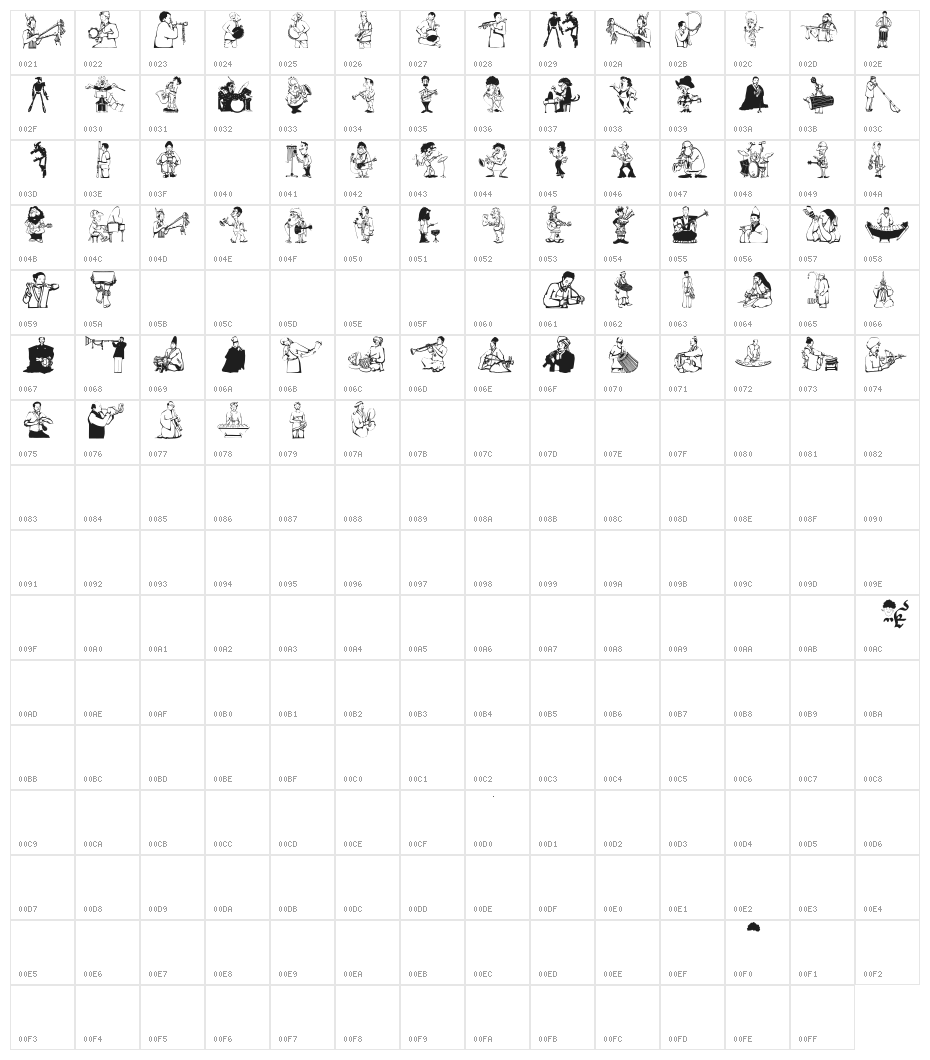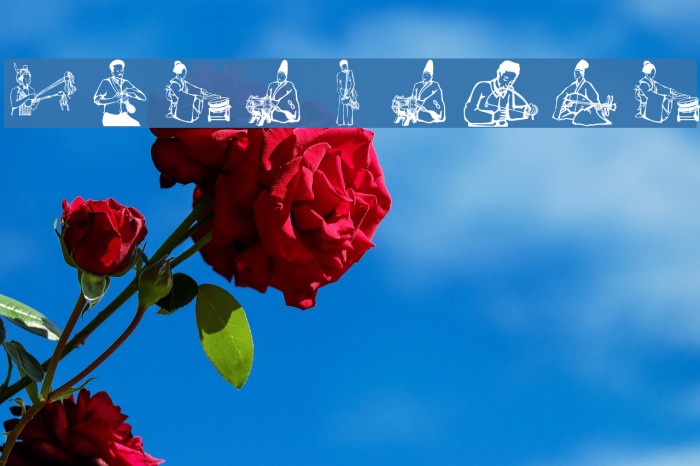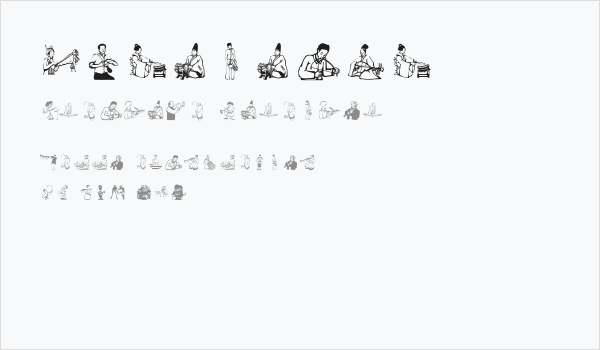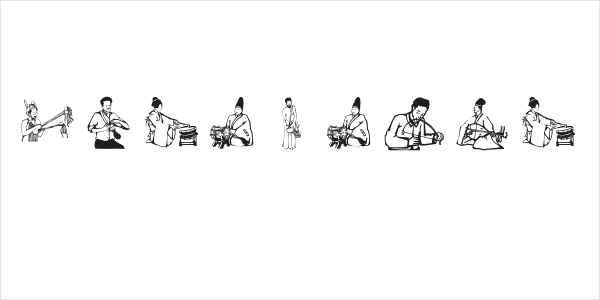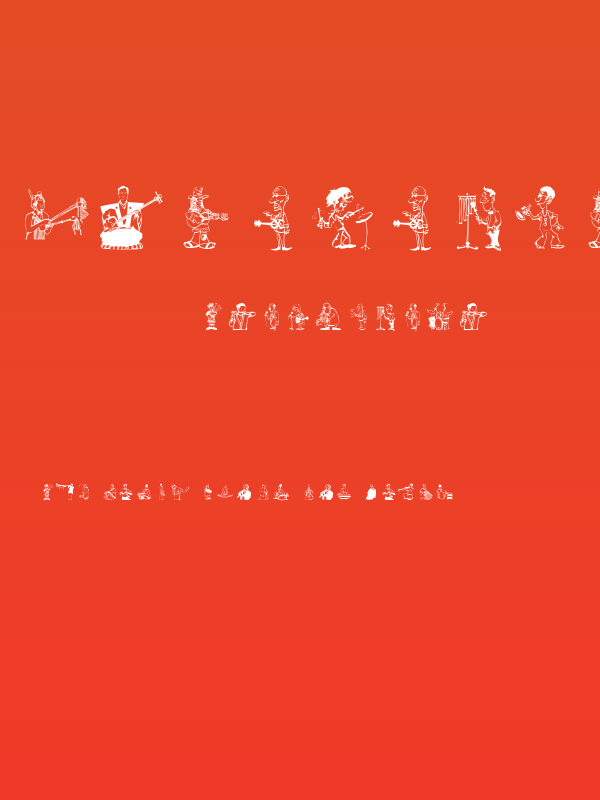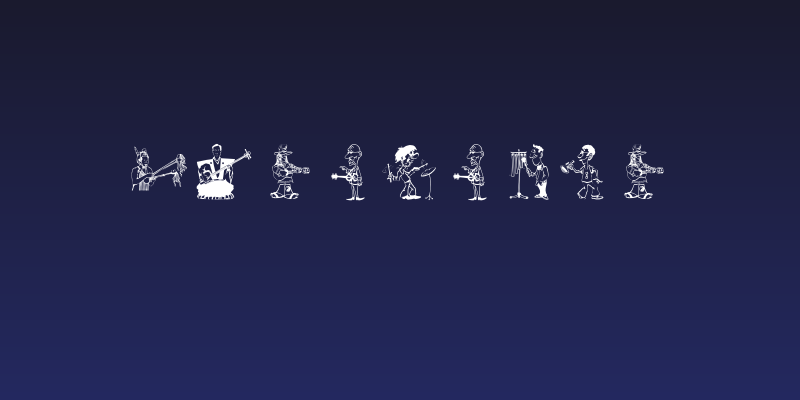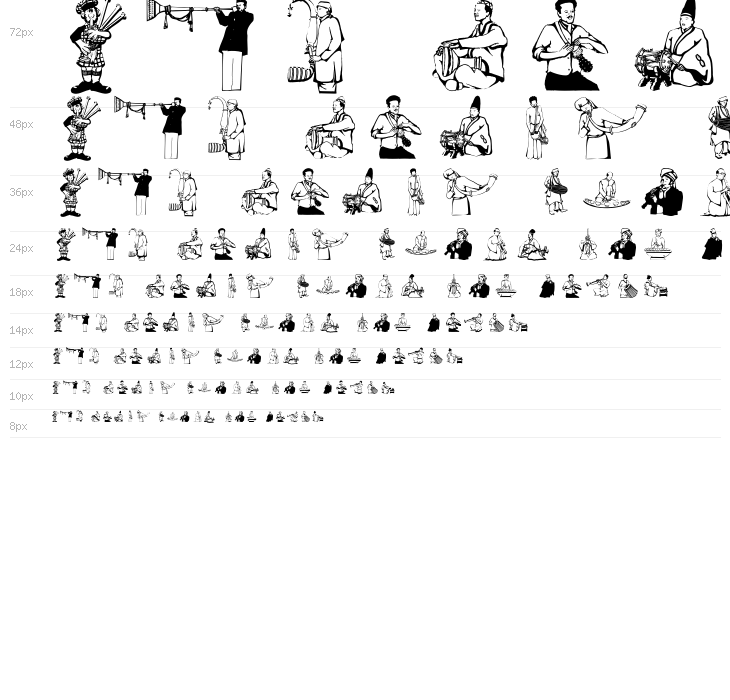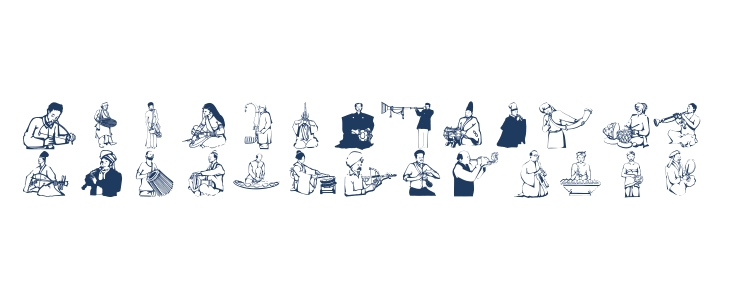
Musicians Font
Musicians Description
A decorative, illustrative font composed of detailed cartoon-style drawings of musicians playing various instruments, each character represented by a unique musician illustration. The glyphs are highly pictorial and lack traditional letterforms, focusing on expressive, playful line art.
| Overall Style | Decorative, Playful, Illustrative |
| Use Case | Logos, Posters, Themed Headlines, Educational Graphics |
| Proposed Projects | ChildrenΓ’β¬β’s books, music event posters, educational materials, playful branding, themed party invitations. |